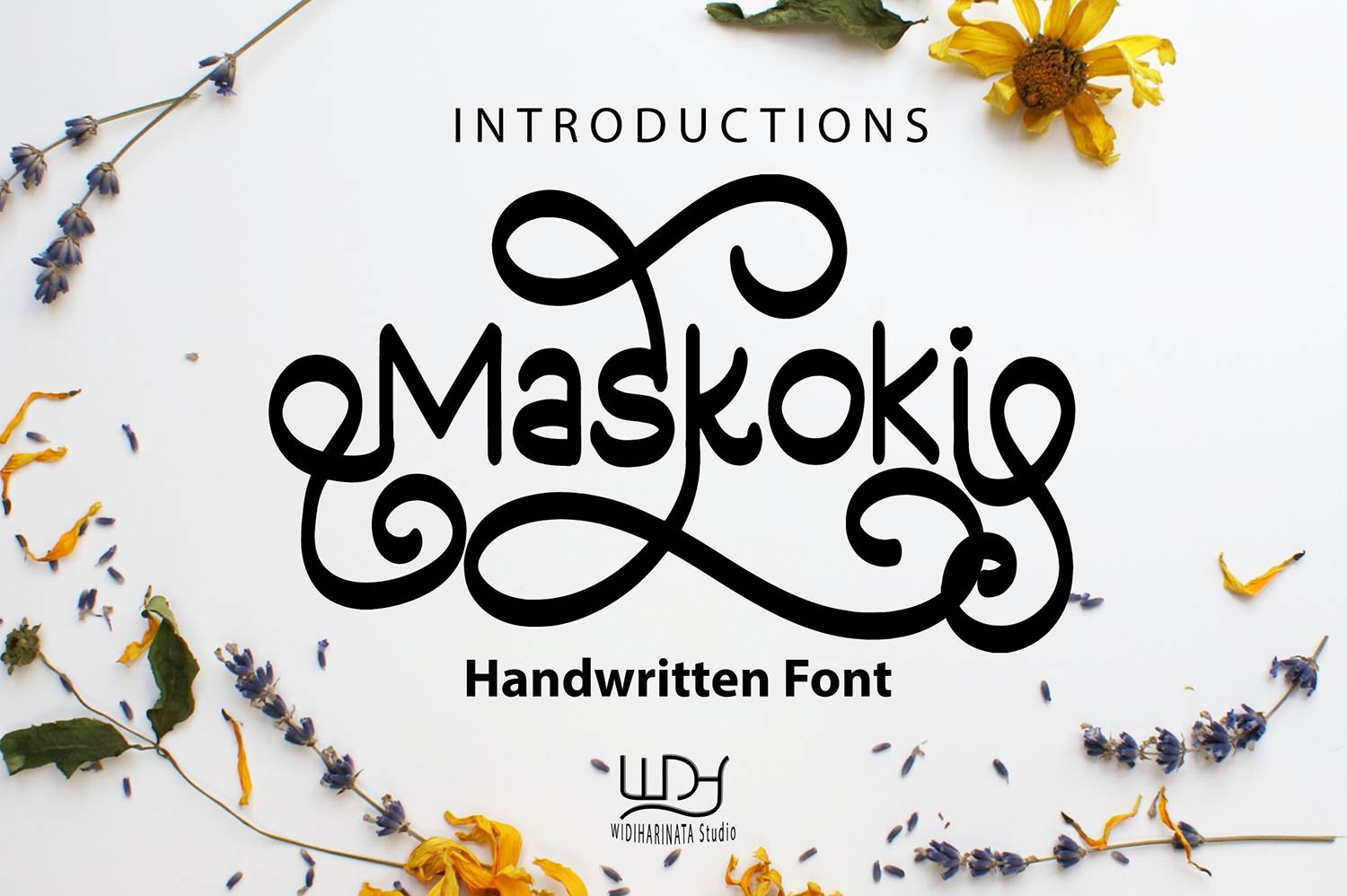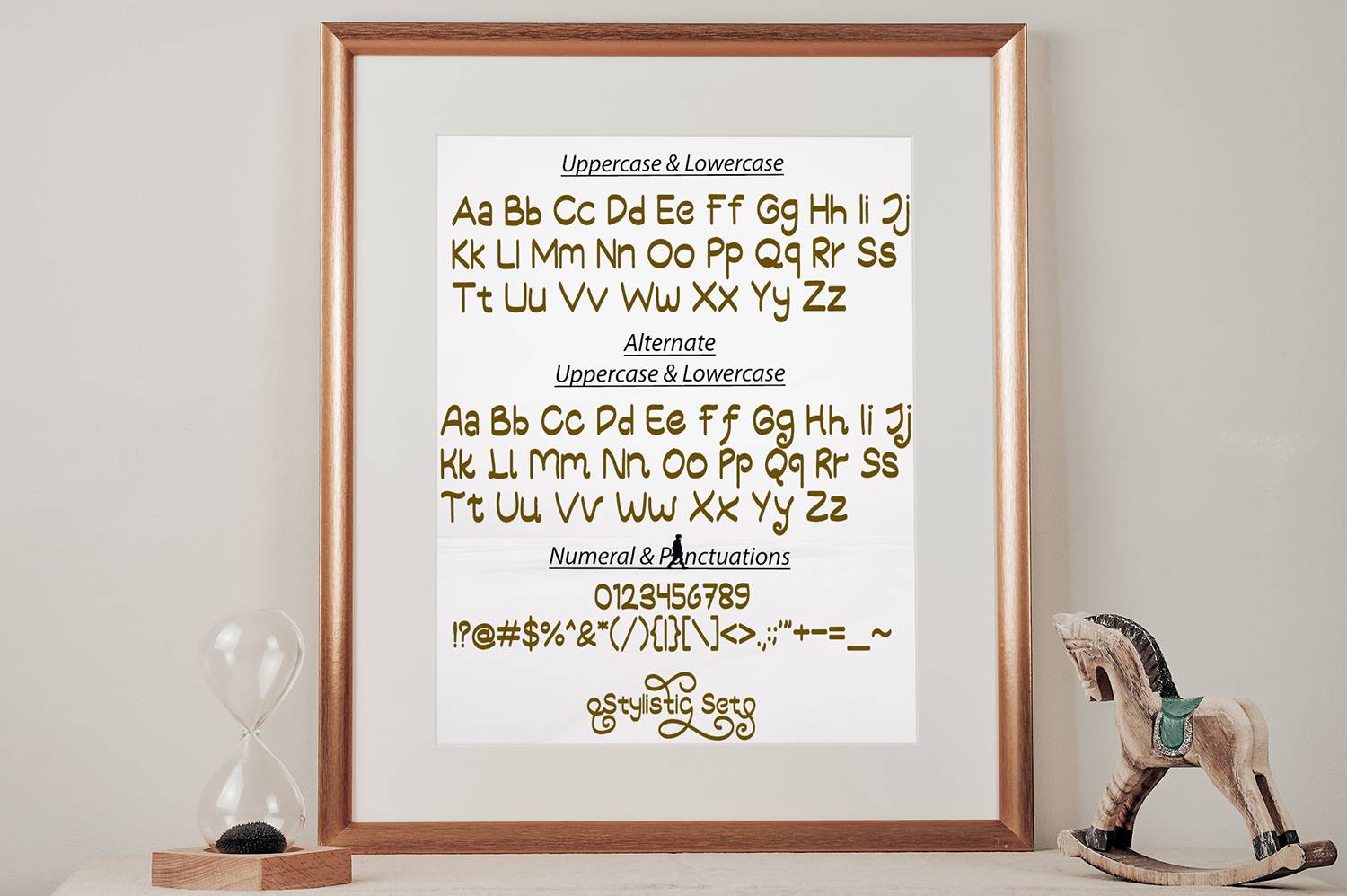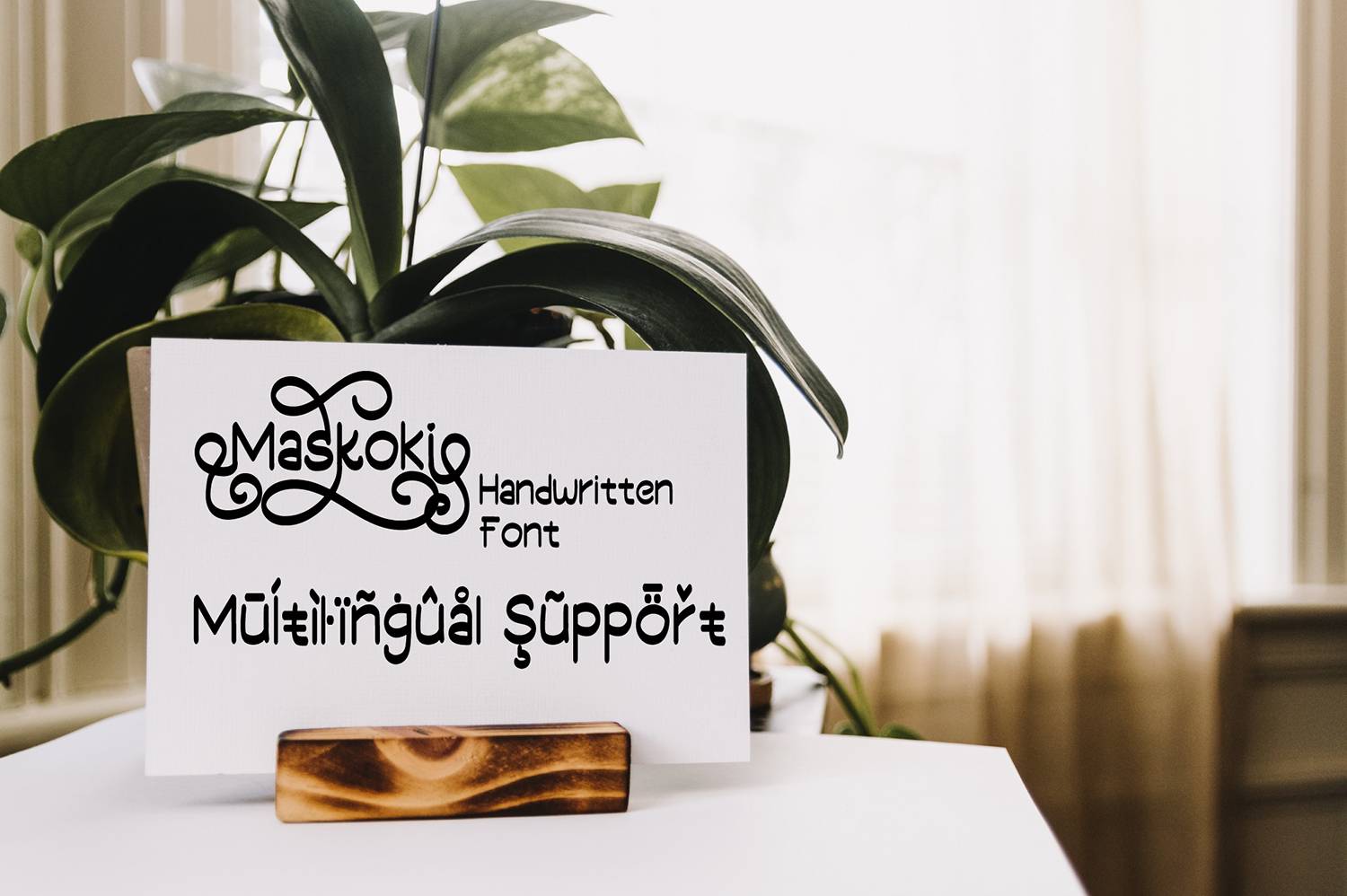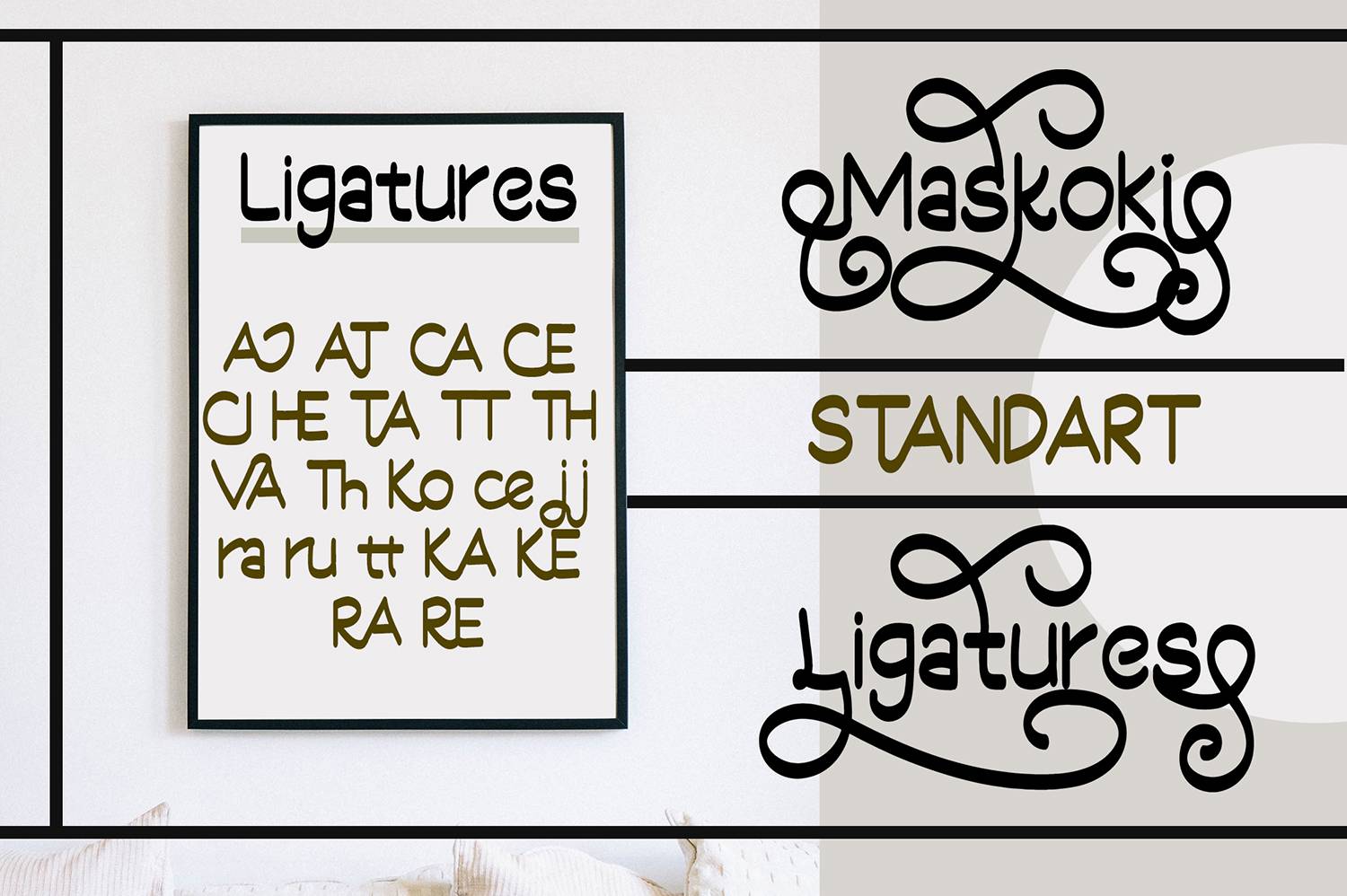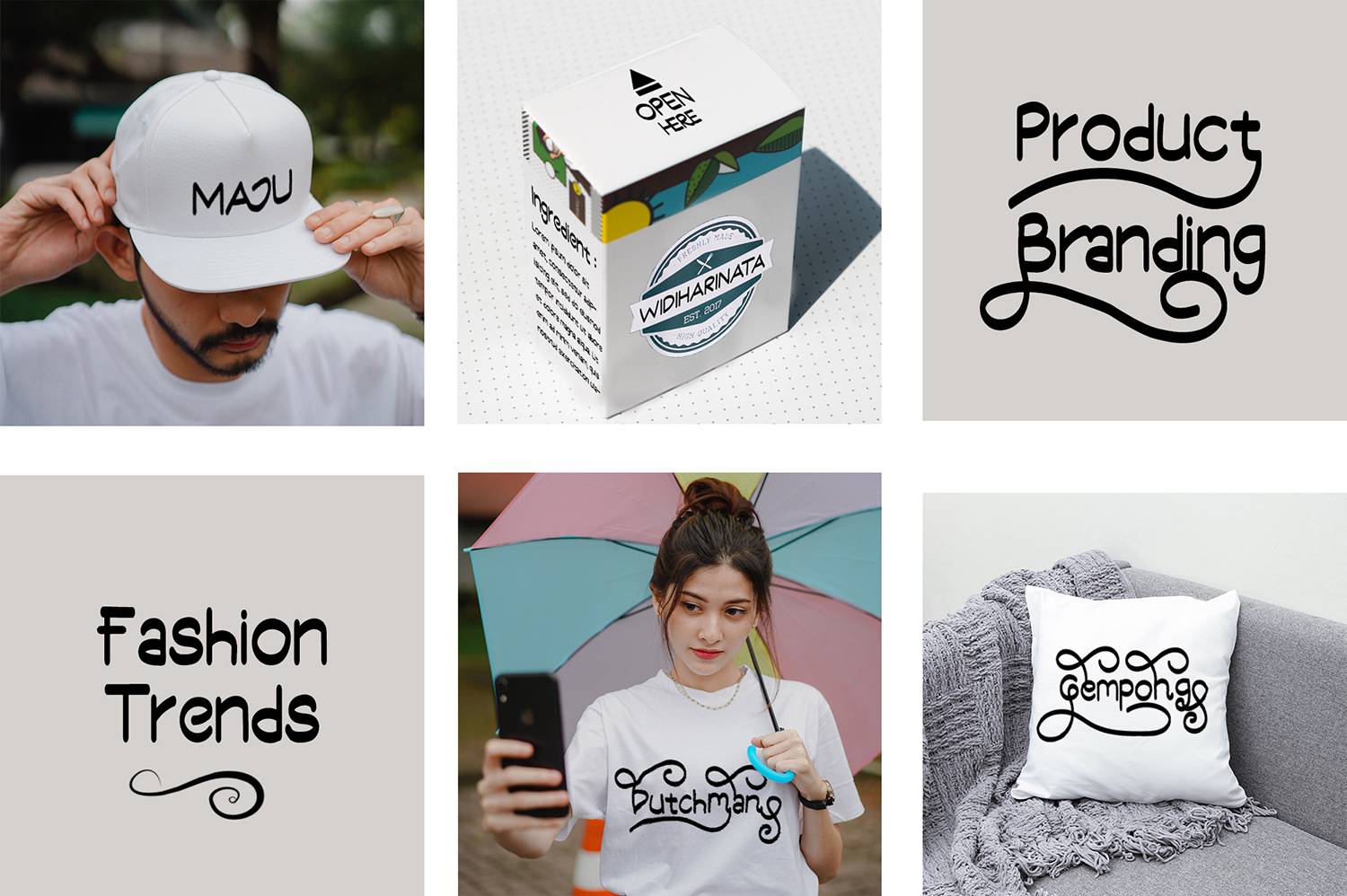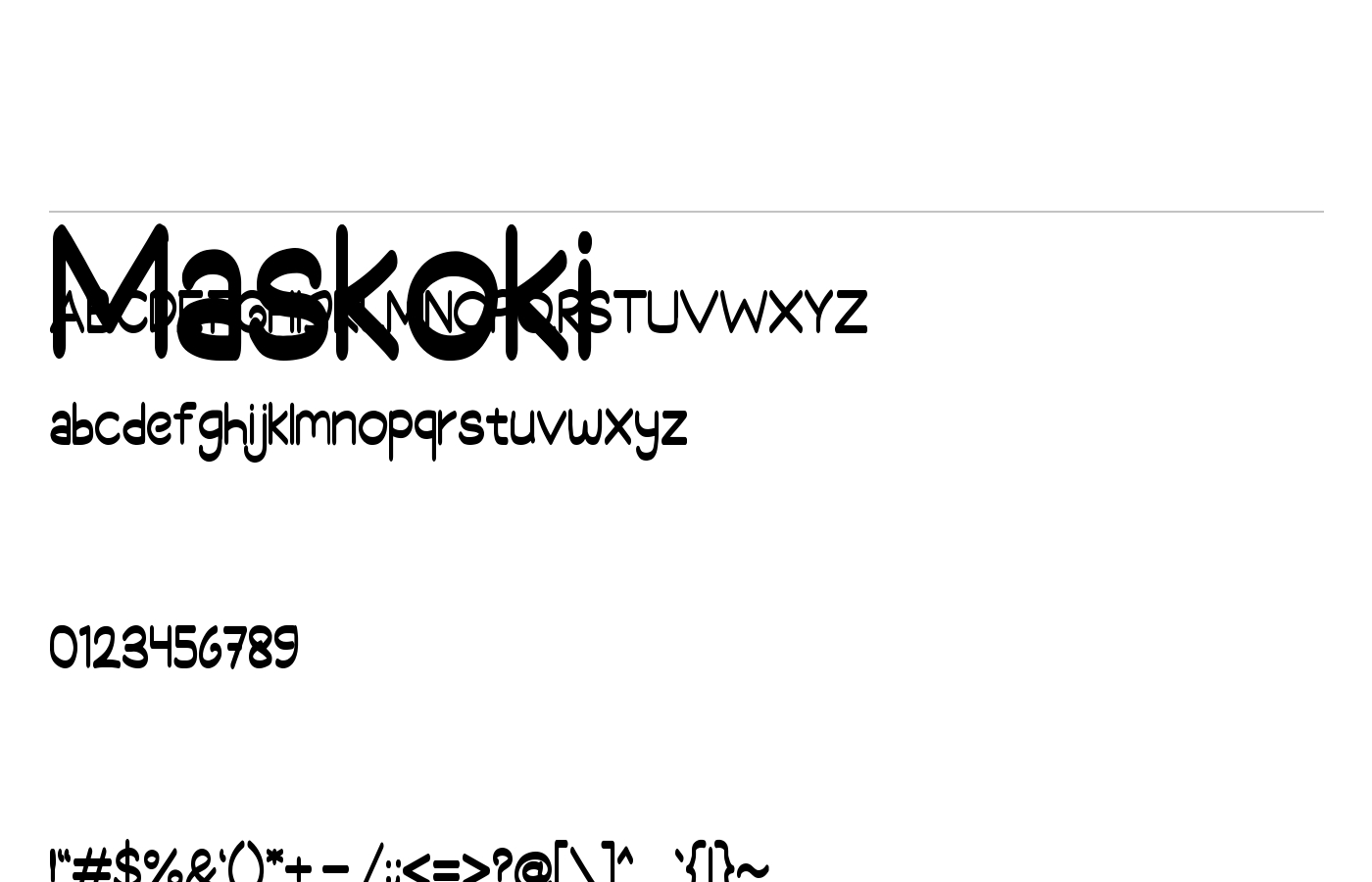
Maskoki is a quirky and playful sans serif font with a hand-drawn feel, featuring rounded strokes and uneven letterforms that give it a casual, informal vibe. Its moderately condensed width and medium weight make it suitable for fun, youthful branding, creative projects, and headline use where personality and approachability are desired. This font works best in designs that aim to convey friendliness and creativity rather than formal or traditional tones.
Maskoki Font
About Maskoki Font
| Font family | Maskoki Font |
| Designer | I Kadek Widiharinata |